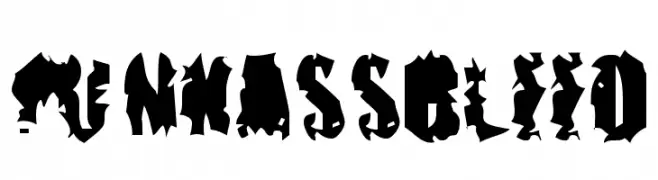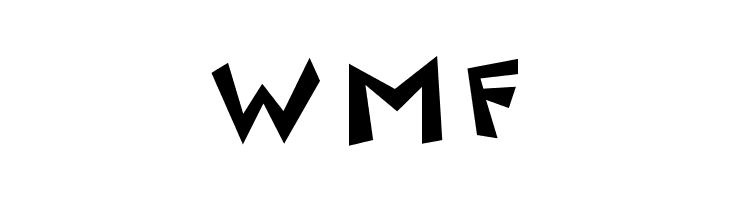
A bold, shattered glass effect font with jagged, fragmented characters.
A bold, jagged font with a chaotic, energetic style.
A bold, angular font with sharp, jagged edges and a dynamic, aggressive style.
A jagged, energetic font with irregular, zigzag outlines.
A bold, hand-drawn font with jagged edges and a rugged, artistic style.
A bold, jagged font with an electric, energetic style.
A rugged, distressed font with jagged edges and high contrast strokes.
A rugged, distressed font with jagged edges and bold strokes.
A bold, monospaced font with a jagged, distressed uppercase style and geometric lowercase design.
A bold, jagged font with a distressed, horror-themed design.
A bold, graffiti-inspired font with jagged edges and dynamic shapes.
A playful, edgy font with a paper cutout style and jagged edges.
A bold, electrifying font with jagged, lightning-like characters.
A bold, spiky font with jagged edges for dynamic visual impact.
A bold, jagged font with sharp, thorny edges for a dynamic look.
A bold, distressed font with a grunge aesthetic and jagged edges.
A chaotic, ink-splattered font with jagged, energetic characters.
A bold, jagged, and dynamic font with a raw, energetic style.
A jagged, thorny decorative font with an intense and chaotic style.
A horror-themed font with dripping, jagged edges and a chaotic style.
A bold, textured font with a jagged, hand-drawn appearance.
A jagged, shattered glass-style font with sharp, angular fragments.